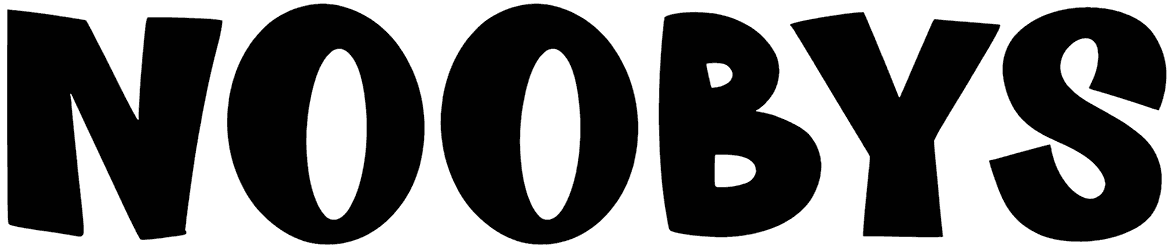
Noobys Font
The fancy, lively vibe of the Noobys font, which was clearly inspired by cartoon fonts, will help you leave a good impression on your customers. Printed materials like books, posters, and comics will all benefit from their uniqueness.
Even though it lacks lowercase letters and numerals, you can rest assured that this amusing font will get the job done. Get your hands on this incredible comic font right now, and you’ll have your readers begging for more.